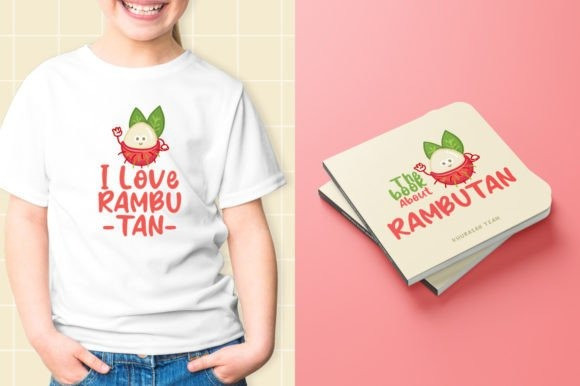
Rambutan Days Font
Rambutan Days Display Font is a fun and cool display font. Whether you use it for cartoon-related designs, children’s games, or just any creation that requires a playful touch, this font is the perfect choice for your designs!